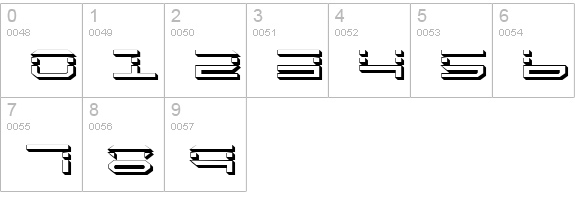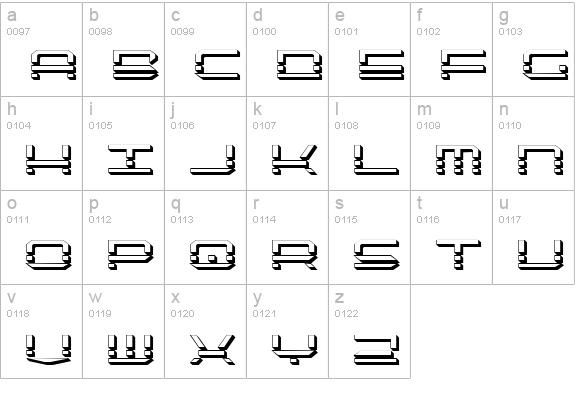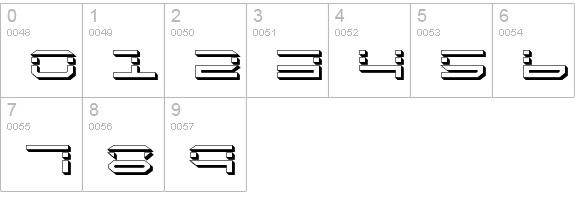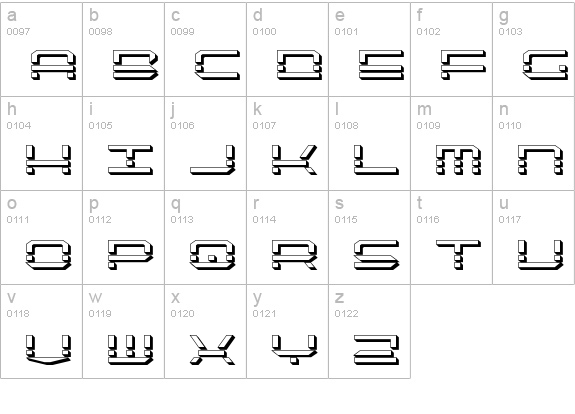
QuickQuick Shadow is a stunning and versatile font that effortlessly adds depth and dimension to any design project. Its unique shadow effect creates a visually striking appearance that grabs attention and captivates viewers. With its modern and clean design, QuickQuick Shadow is perfect for a wide range of applications, from logos and branding to headlines and posters. This font is not only visually appealing but also incredibly practical. Its legibility remains intact, ensuring that your message is effectively communicated to your audience. The careful balance between the shadow effect and the font's letterforms creates a harmonious blend that is both eye-catching and easy to read. What makes QuickQuick Shadow even more appealing is that it is available for free. Yes, you read that right - this remarkable font can be freely downloaded at FontsMarket.com. Whether you're a professional designer or a creative enthusiast, you can now access this extraordinary font without any cost. This means that you can elevate your designs without breaking the bank. So, why wait? Don't miss out on the opportunity to enhance your design projects with the captivating QuickQuick Shadow font. Download it for free at FontsMarket.com and unleash your creativity like never before.